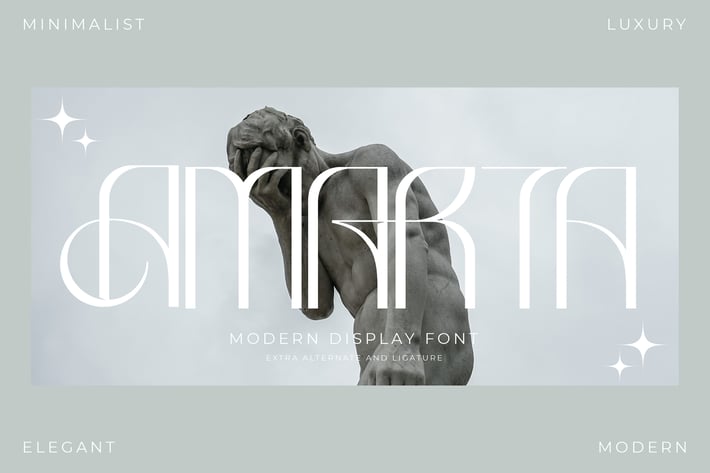
Amarta Modern Display Font
Amarta is a sleek modern display serif font built for minimalist luxury visuals. With tall, stylized letterforms and elegant curves, it delivers a high-fashion editorial vibe—perfect for premium branding, posters, and sophisticated typography that needs to feel bold yet refined.
Modern display serif with a minimalist luxury feel
Stylish high-contrast letterforms for strong visual impact
Extra alternates for more unique typographic layouts
Elegant ligatures for smoother, premium wordmarks
Luxury branding & fashion labels
Editorial layouts & magazine covers
Premium logos & wordmarks
Posters, headlines, and hero typography
Packaging & high-end product design
Minimalist energy, luxury attitude — a display font that turns every headline into a statement.*